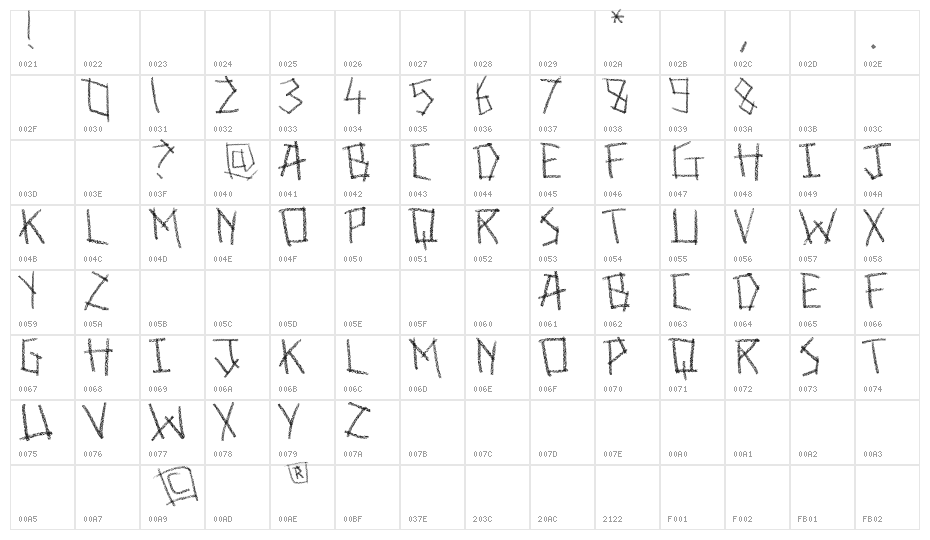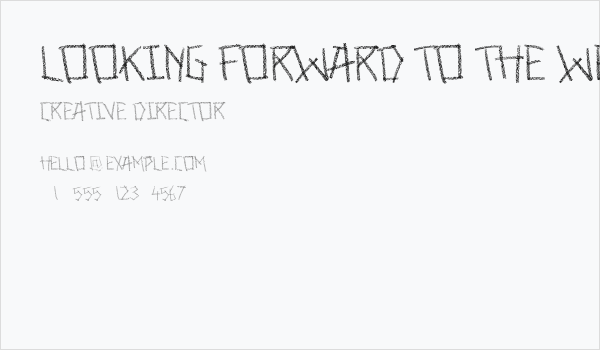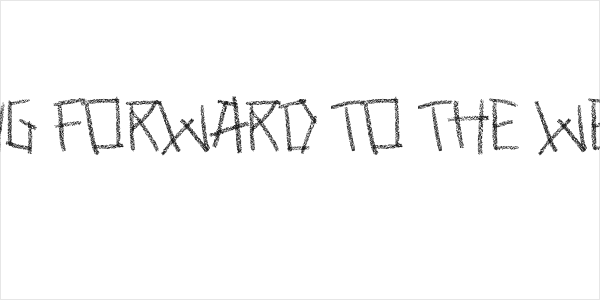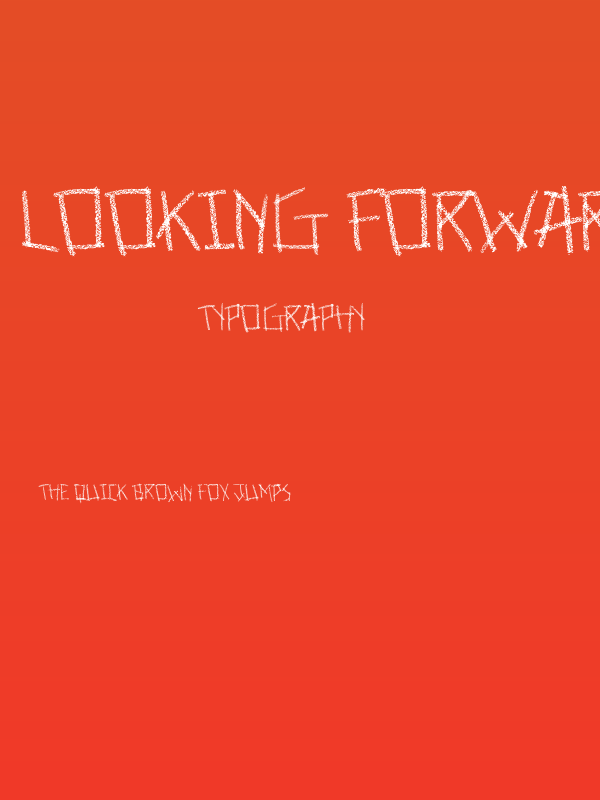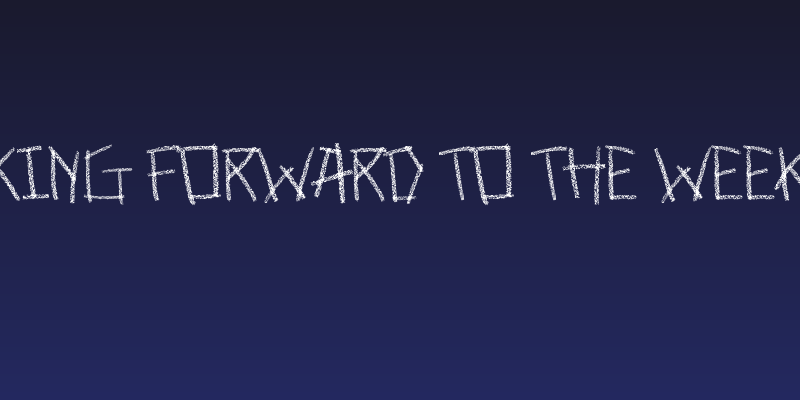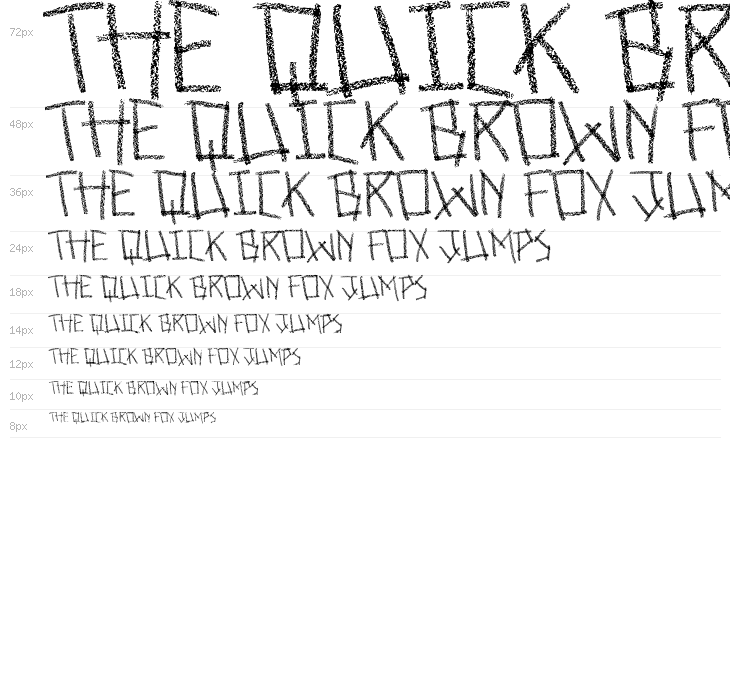
Looking forward to the weekend! Font
Looking forward to the weekend! Description
This font features a rough, hand-drawn style reminiscent of chalk or crayon sketches. The characters are irregular and jagged, giving it a raw and expressive appearance. Each letter and number is uniquely crafted with uneven strokes, adding to its informal and artistic vibe. The font captures a sense of spontaneity and creativity, making it ideal for projects that require a personal touch. Its distinctive texture and playful design make it stand out, while the consistent height across characters ensures readability despite its unconventional form.
| Use Case | Headlines, Artistic projects, Informal designs |
| Proposed Projects | Ideal for children's book covers, artistic posters, casual invitations, and creative branding. |